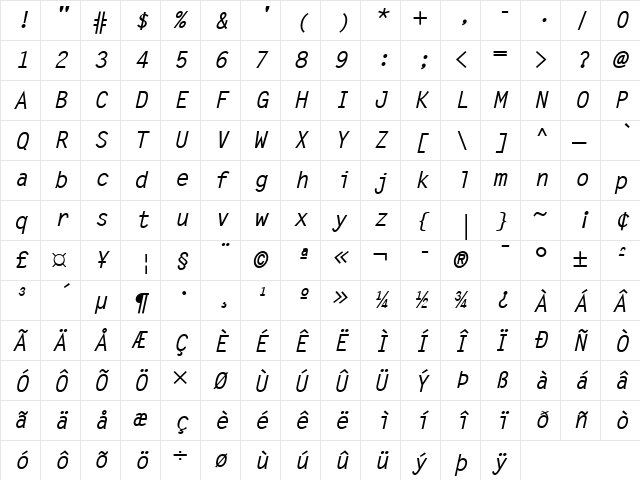
LetterGothic LT Bold Italic Font Preview
LetterGothic LT Bold Italic
LetterGothic LT Bold Italic Font Details
Design Context for LetterGothic LT Typeface
LetterGothic LT has the quiet confidence of well-executed sans-serif typography: versatile, unobtrusive, and dependable at any size. The dynamic lean of this cut emphasises speed and emphasis in any layout. The heavy weight commands attention and anchors typographic hierarchies.
Well-suited to navigation labels, product packaging, and anywhere legibility at scale is essential.
Font Pairing: Use LetterGothic LT for headlines alongside a lighter-weight sans or serif for body copy to establish clear visual hierarchy.
Pro Tip: Use LetterGothic LT with generous tracking and line-height for the most luxurious effect — light sans-serifs reward spacious, considered layouts.